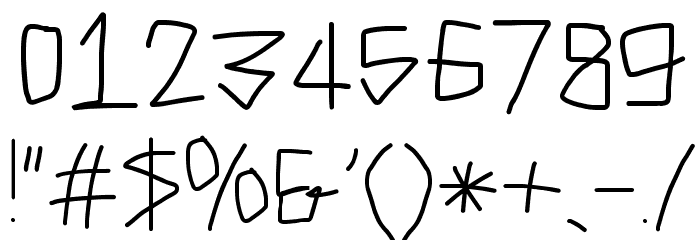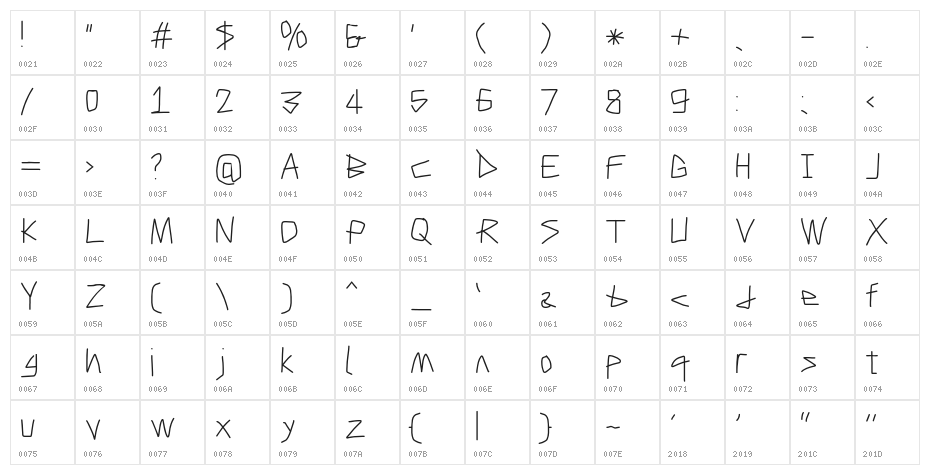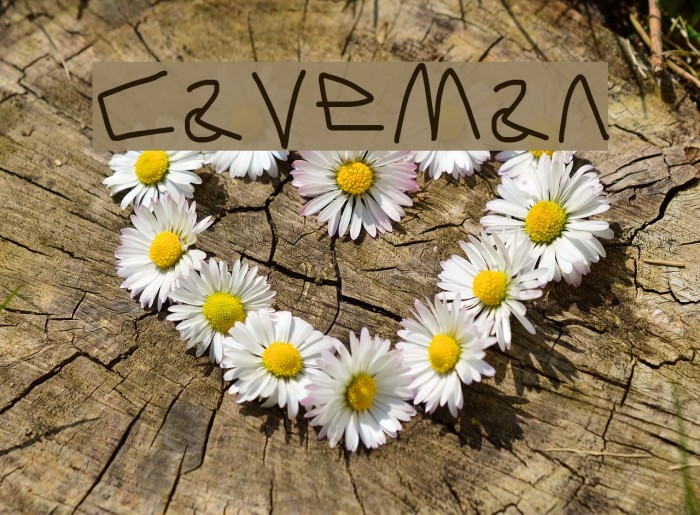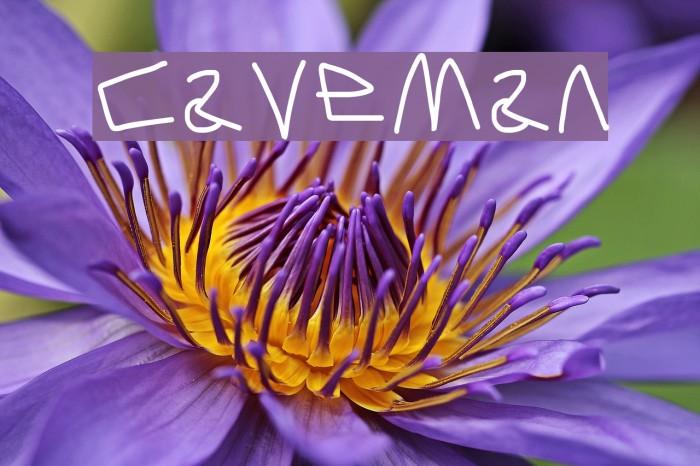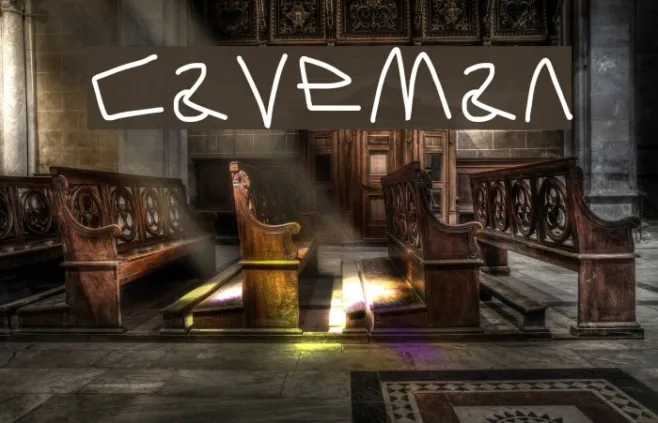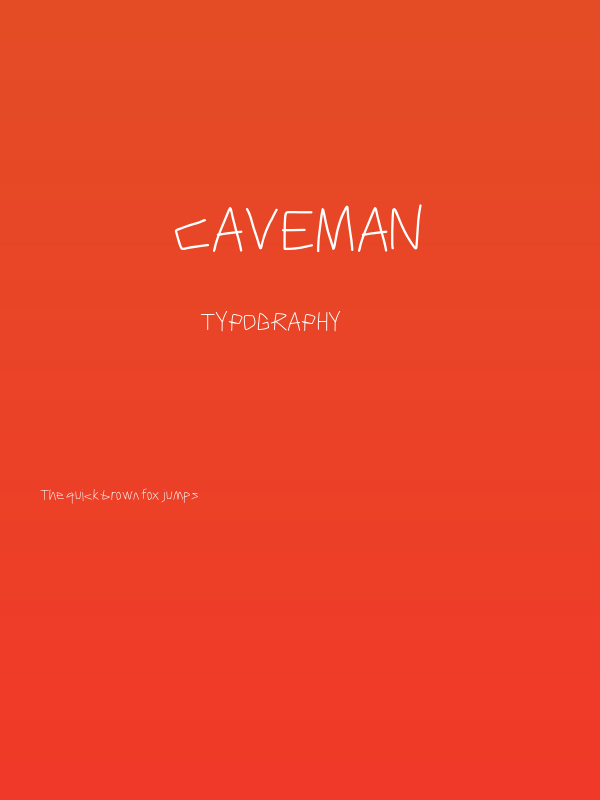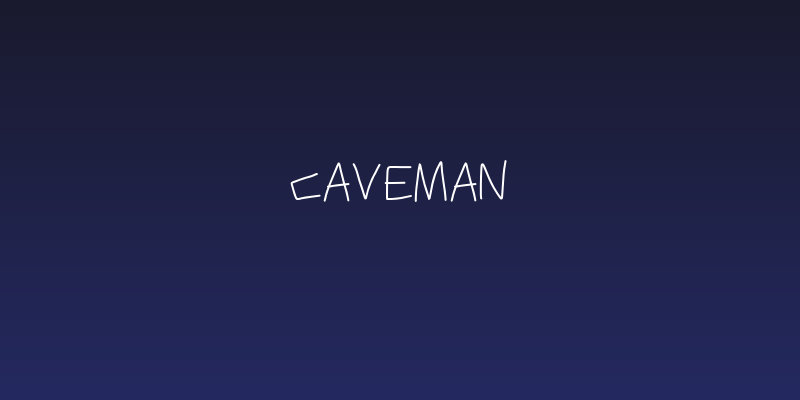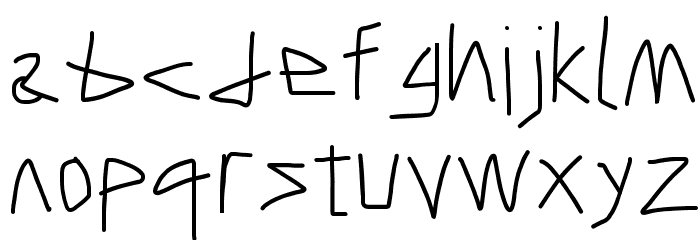
Caveman Font
Caveman Description
This font features a playful, hand-drawn style reminiscent of primitive cave drawings. The characters are uneven and irregular, giving it a casual and informal appearance. The uppercase and lowercase letters maintain a consistent style, with angular lines and a slightly rough texture. Numbers and special characters follow the same aesthetic, ensuring a cohesive look across all glyphs. The font's unique charm lies in its imperfect, organic feel, making it ideal for projects that require a touch of whimsy or a rustic vibe.